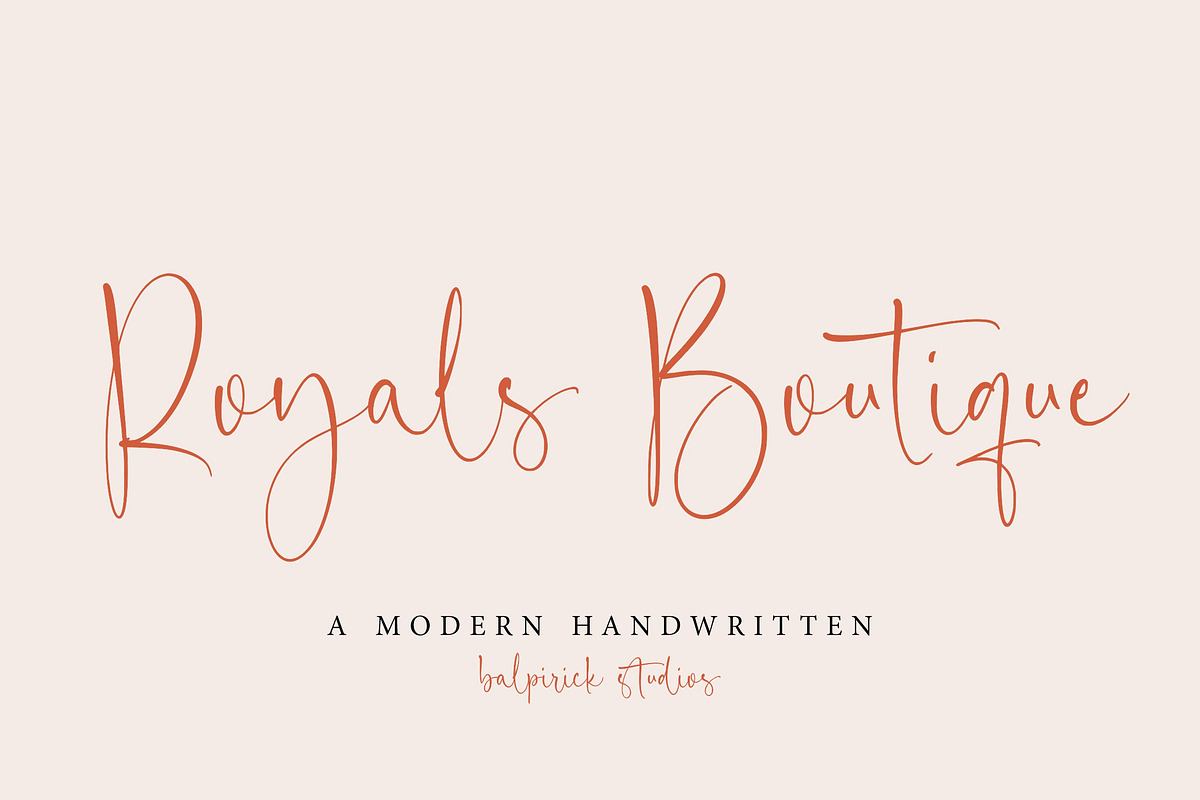
Royals Boutique Font Free Download is a luxurious and sophisticated script typeface designed to add elegance and refinement to high-end branding projects. With its flowing strokes and upscale aesthetic, Royals Boutique is perfect for fashion labels, beauty products, wedding invitations, social media content, and luxury packaging.
Featuring stylish curves and carefully crafted ligatures, Royals Boutique Font Free Download delivers a polished, signature look that commands attention. Whether you're designing a boutique logo or curating a premium lifestyle brand, this font provides the perfect balance of glamour and class.